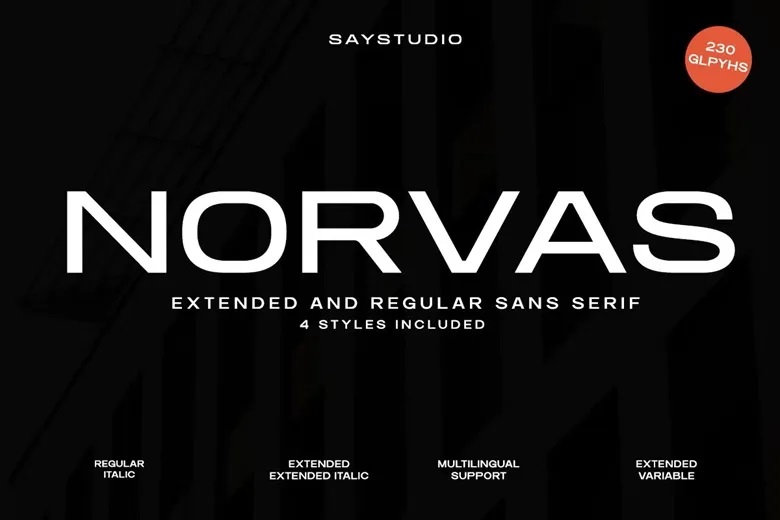
Norvas Font
Norvas is a modern extended sans serif font that is meant to provide a smooth, futuristic and self-confident look. Norvas with its broad proportions, clean geometric structure, and crisp letterforms is a typographic identity that has distinguished itself in the modern design. The long style provides a unique modern touch besides being very easy to read.
This typeface can be used in branding, technology startups, online interfaces, website logos, posters, marketing, product wrappings, magazine designs, and social media graphics. Its contemporary protruded version renders it particularly effective in the case of bold headlines, logo design, and futuristic brand identities that cannot be ignored.
Norvas Sans Serif Font